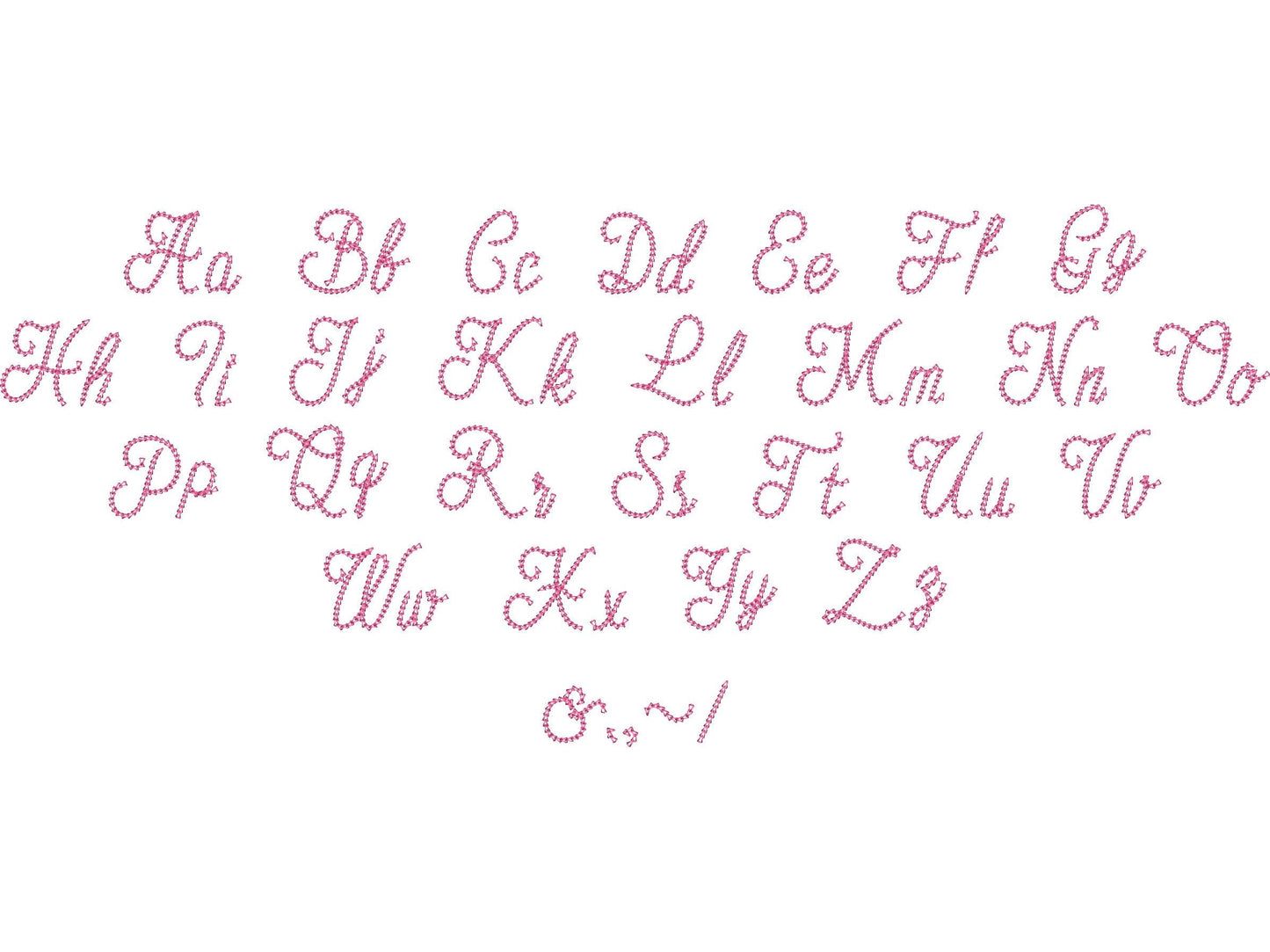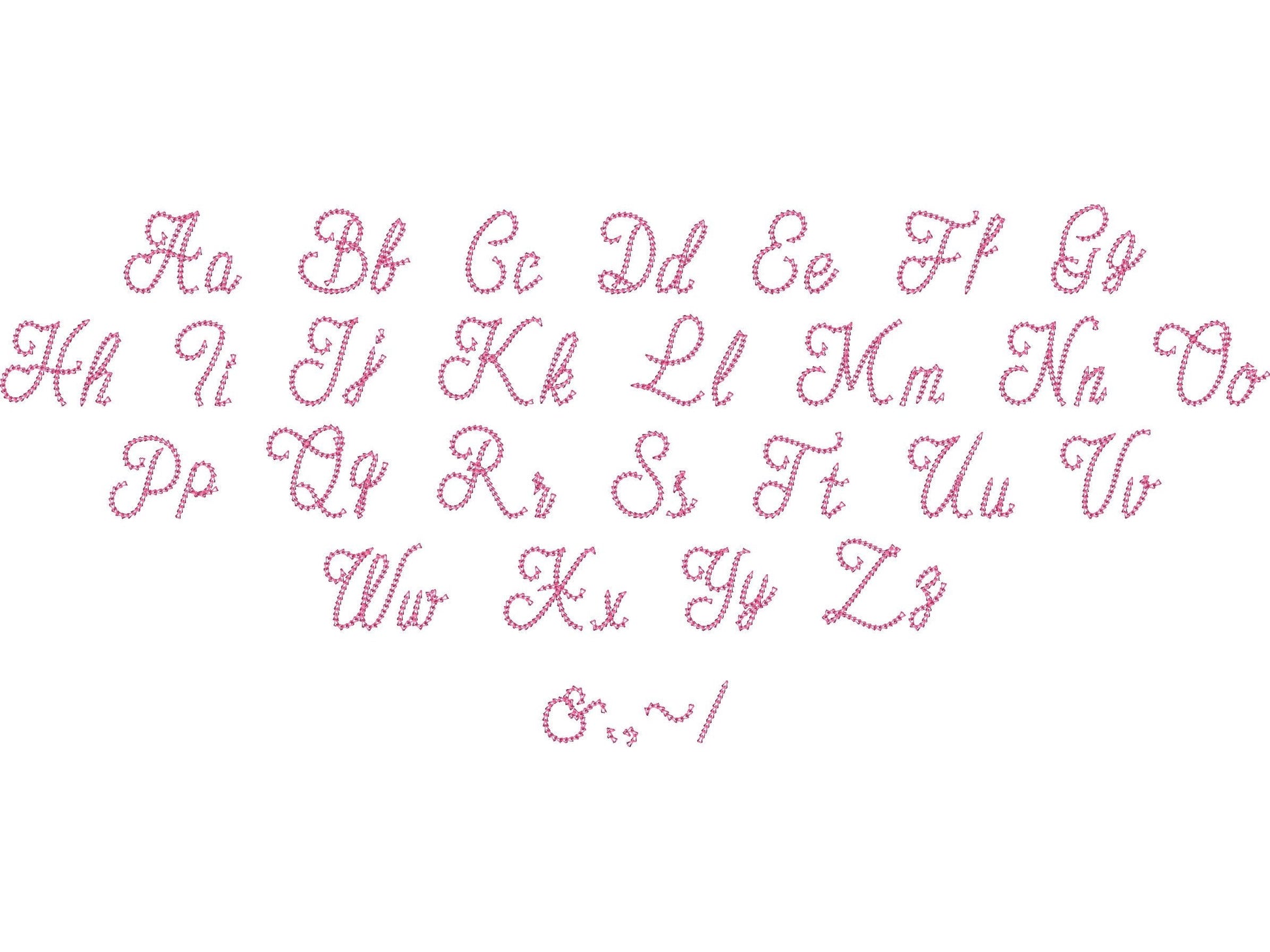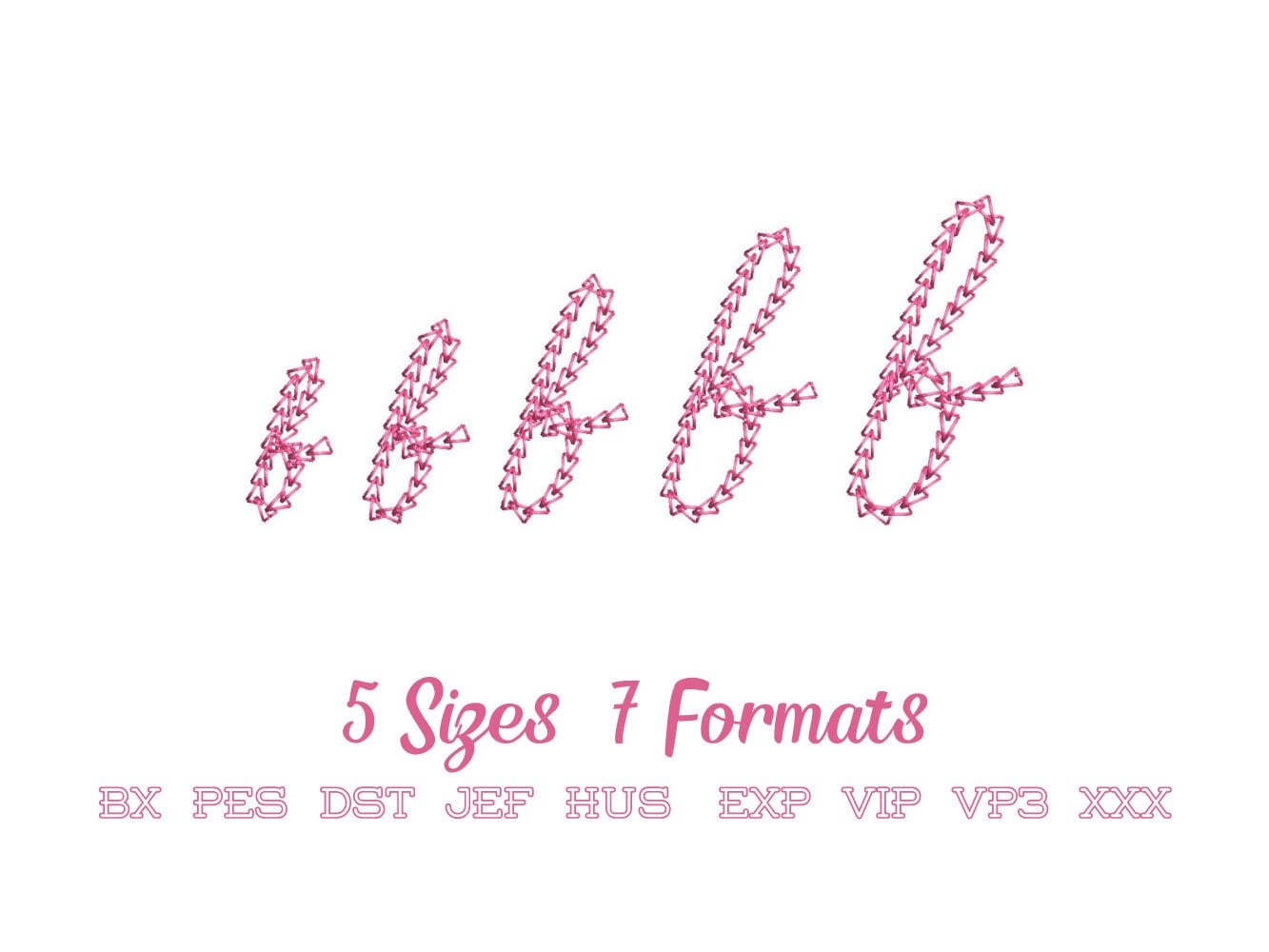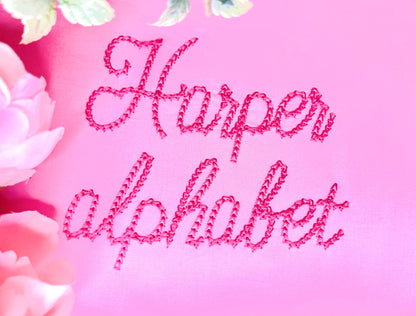
Or click to open the linkA quick, light linked chain script with a playful look. Great for kids' names, monograms, necklines and small gifts.
Uppercase and lowercase letters, plus &, comma, dash, period and slash. Five sizes: 1, 1.3, 1.6, 2 and 2.3 inches. Light stitching that sews out fast.